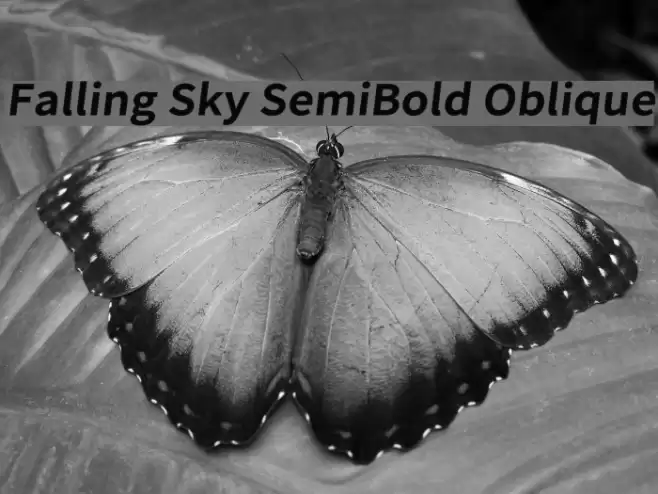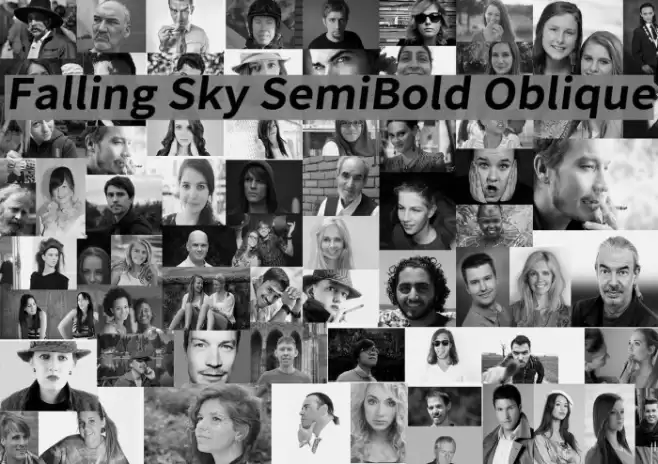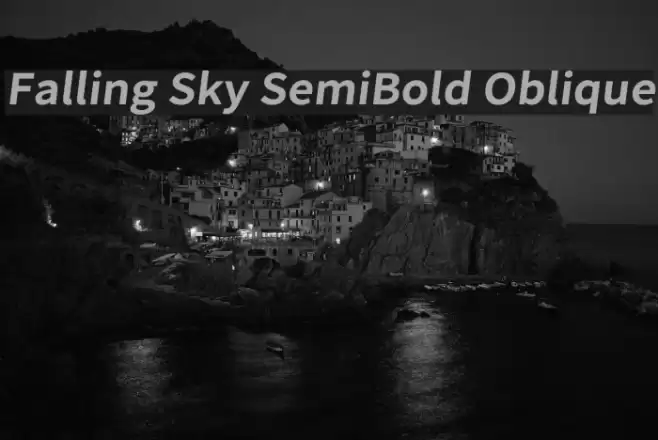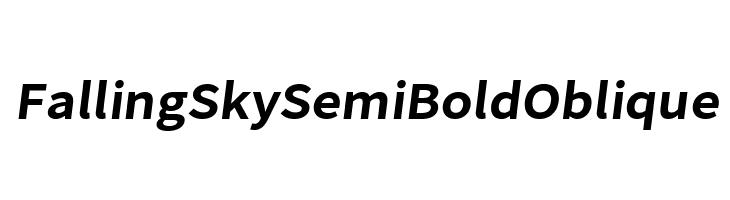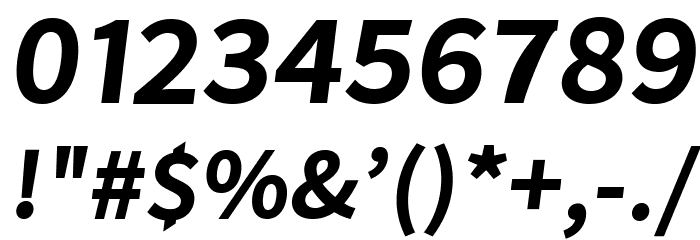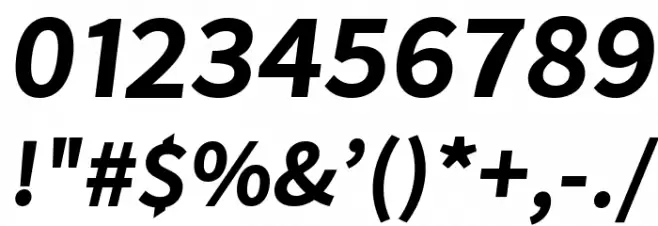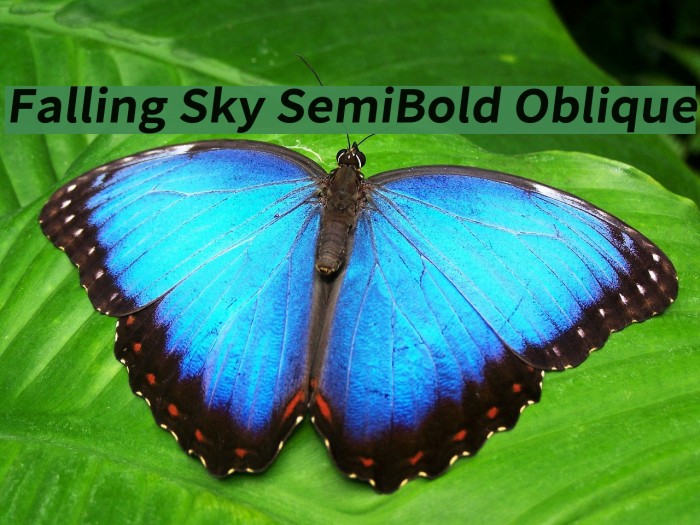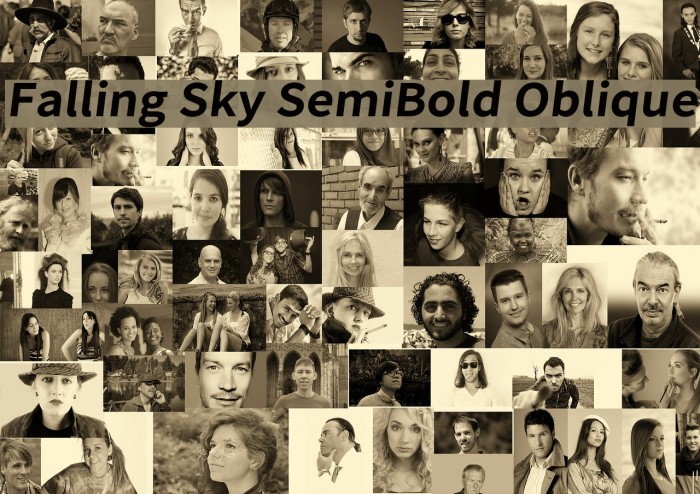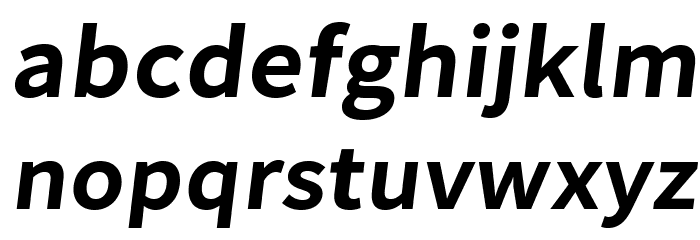
Falling Sky SemiBold Oblique Font
Falling Sky SemiBold Oblique Description
This font exhibits a modern and sleek design with a semi-bold weight and oblique style. The characters are slightly slanted, giving a dynamic and forward-moving appearance. The sans-serif design ensures clean lines and a contemporary look, making it versatile for various applications. The uppercase and lowercase letters are well-proportioned, and the numerals are clear and easy to read. Special characters are included, maintaining the font's cohesive style. The overall impression is professional yet approachable, suitable for both digital and print media.
A modern, semi-bold oblique sans-serif font with a dynamic and clean appearance from Uncategorized fonts.
- Proposed Projects: Ideal for branding, advertising, headlines, and digital content where a modern and dynamic look is desired.
- Use Case: Headlines, Branding, Digital Content